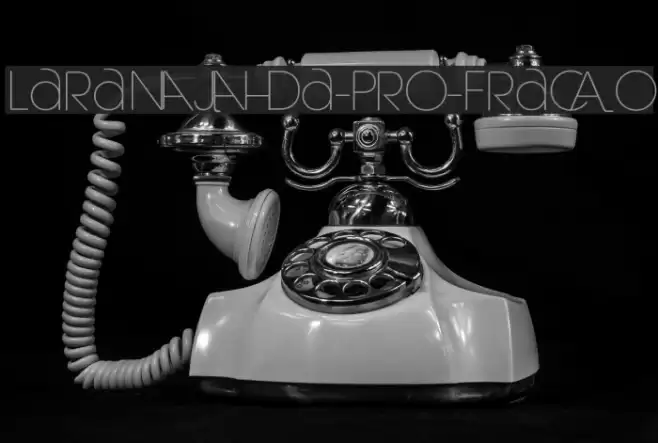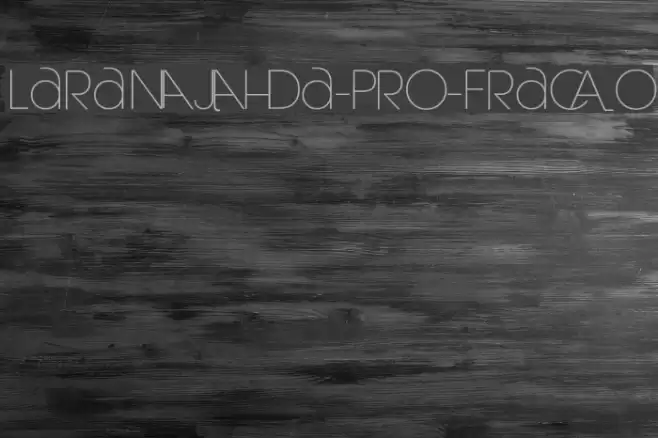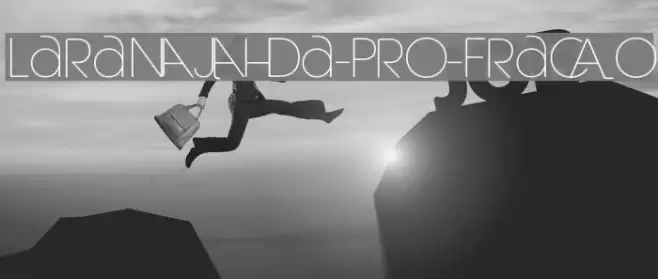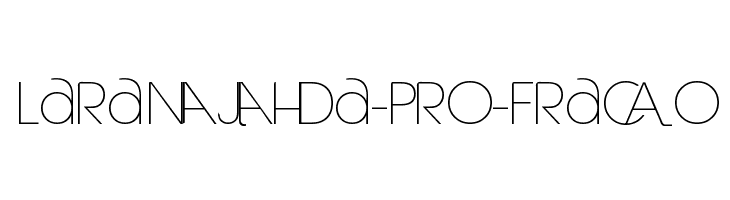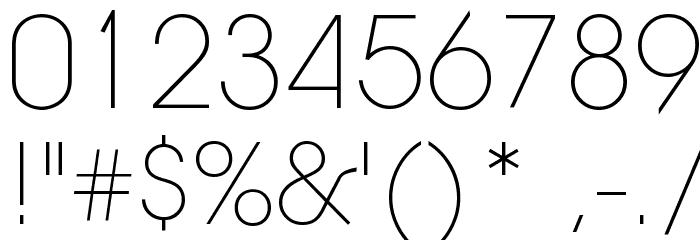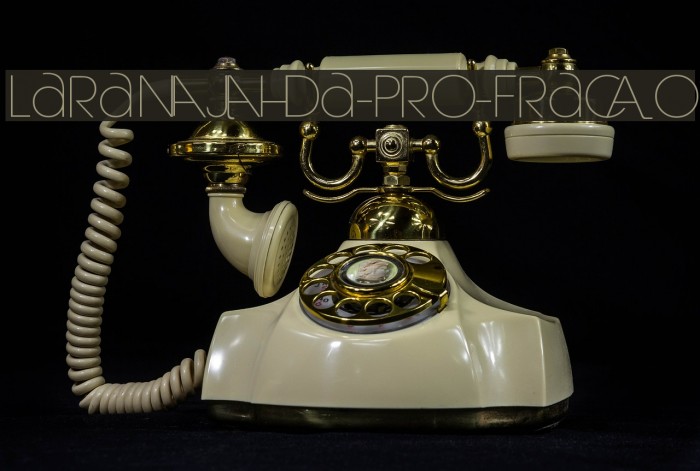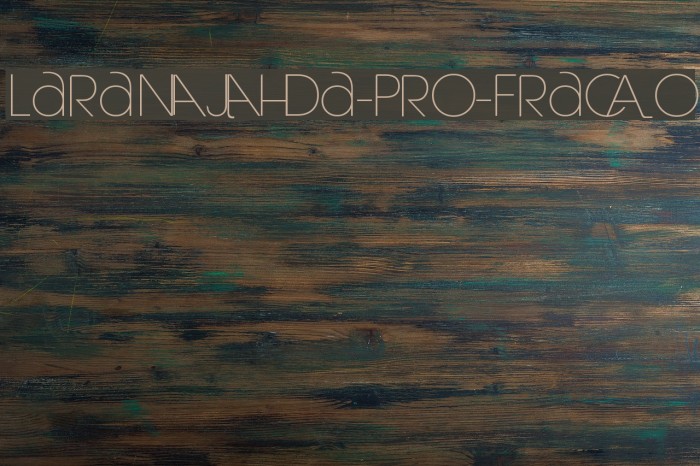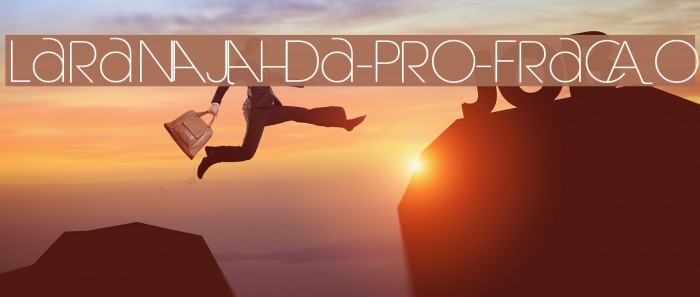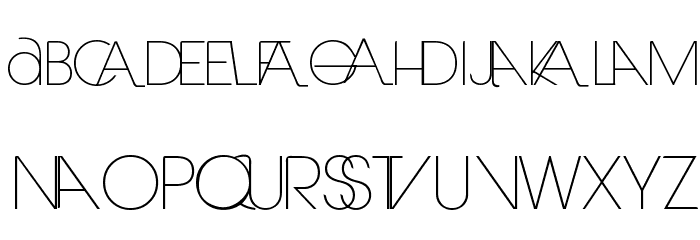
Laranjha-Pro-Fraco Font
Laranjha-Pro-Fraco Description
This font features a sleek, modern design with geometric elements and a minimalist aesthetic. The uppercase letters are characterized by clean, straight lines and sharp angles, while the lowercase letters maintain a similar style with slight variations in curvature. The numerals are consistent with the overall design, offering a uniform appearance. Special characters are integrated seamlessly, maintaining the font's cohesive look. The thin strokes and open spaces give it an airy feel, making it suitable for contemporary design projects.
A modern, geometric font with thin strokes and a minimalist style from Uncategorized fonts.
- Proposed Projects: Ideal for branding, editorial design, and modern web design projects.